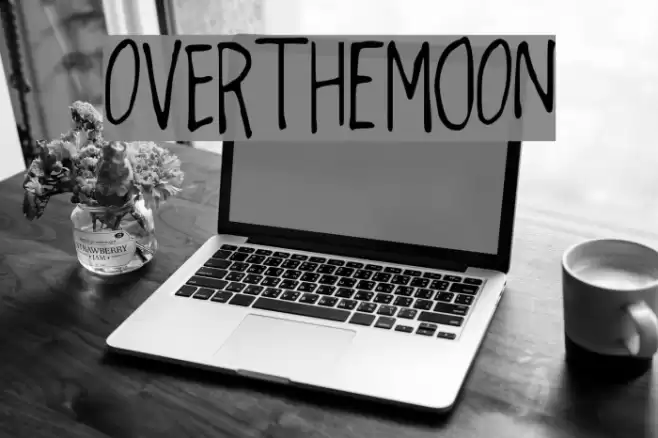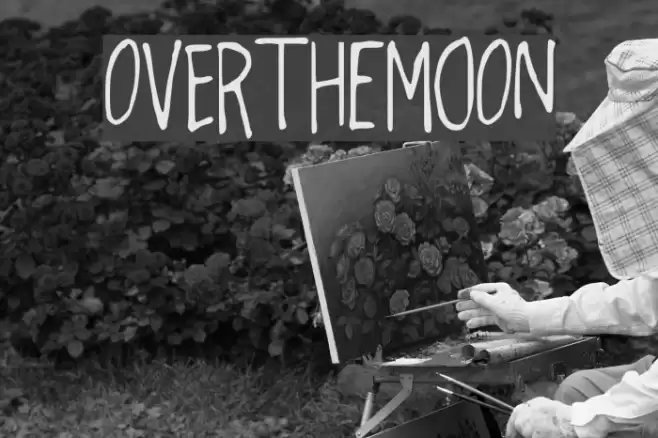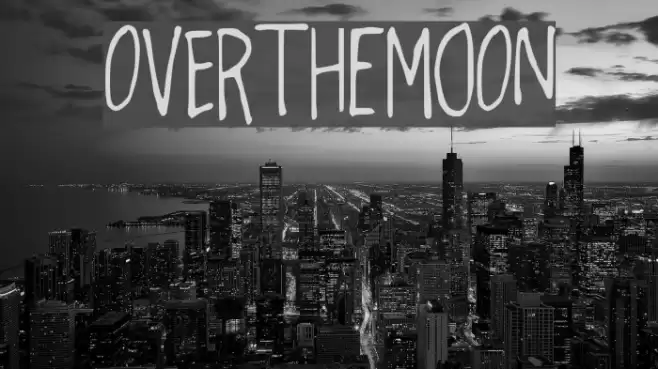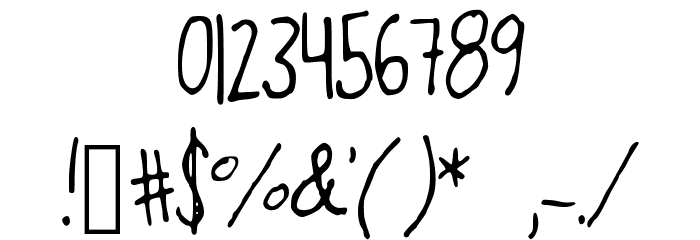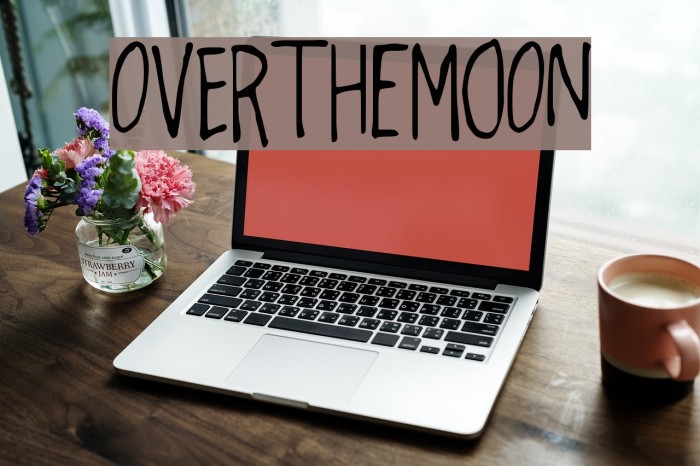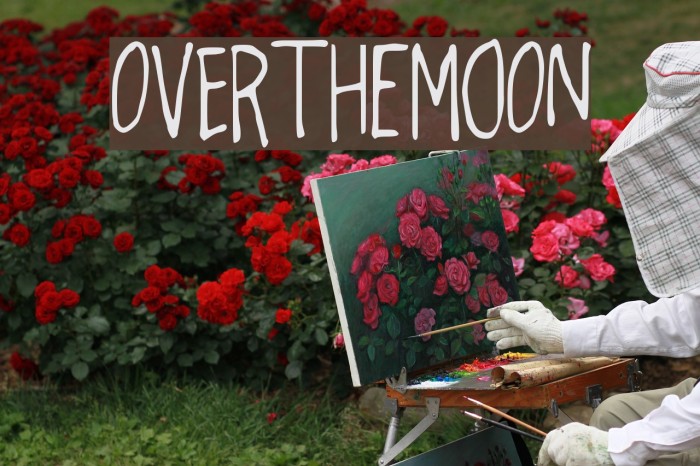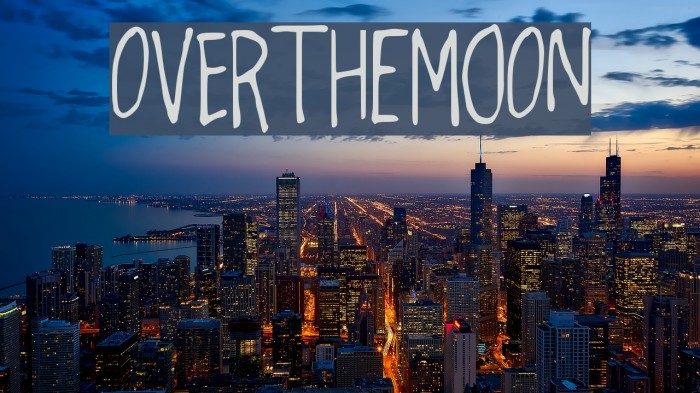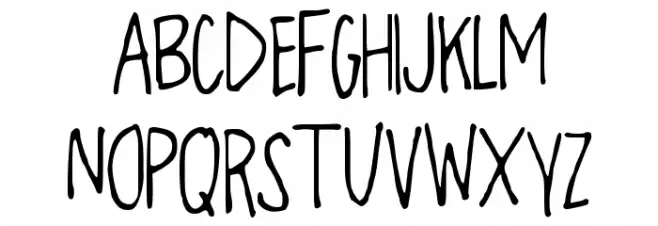
OverthEMoOn Font
OverthEMoOn Description
This font features a playful and casual handwritten style, characterized by its irregular strokes and slightly uneven baseline, giving it a lively and informal appearance. The letters are tall and narrow, with a consistent stroke width that maintains readability while adding a touch of whimsy. The uppercase and lowercase letters are distinct, with the uppercase being slightly taller and more pronounced. The numerals and special characters follow the same playful aesthetic, making the font versatile for various creative applications. Its informal nature makes it ideal for projects that require a personal touch or a sense of fun.
A playful, handwritten font with tall, narrow letters and a casual style from Handwritten fonts.
- Proposed Projects: Ideal for greeting cards, children's books, casual invitations, and playful branding.
- Width: Condensed
- Overall Style: Casual
- Use Case: Headlines, Logos, Informal Text